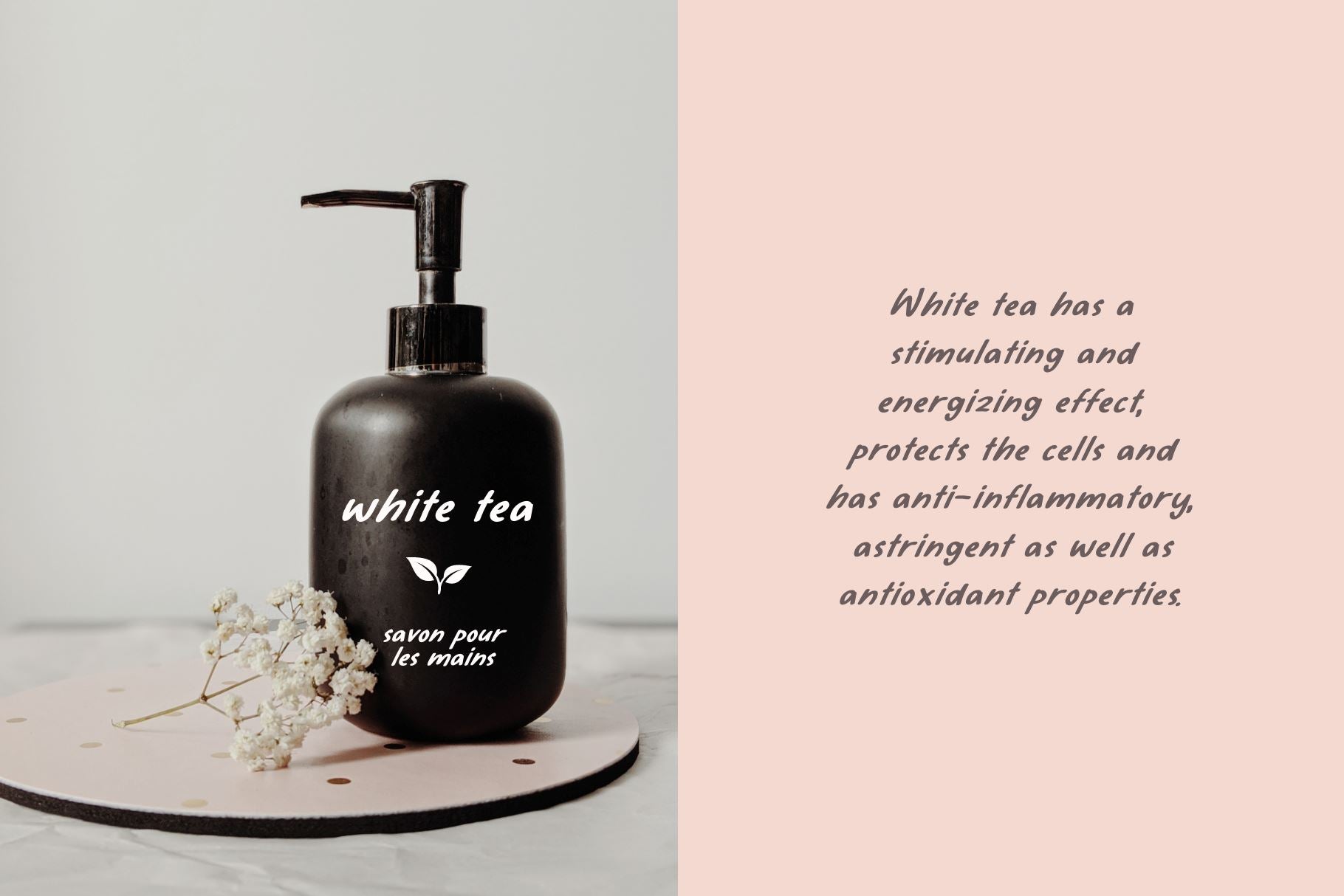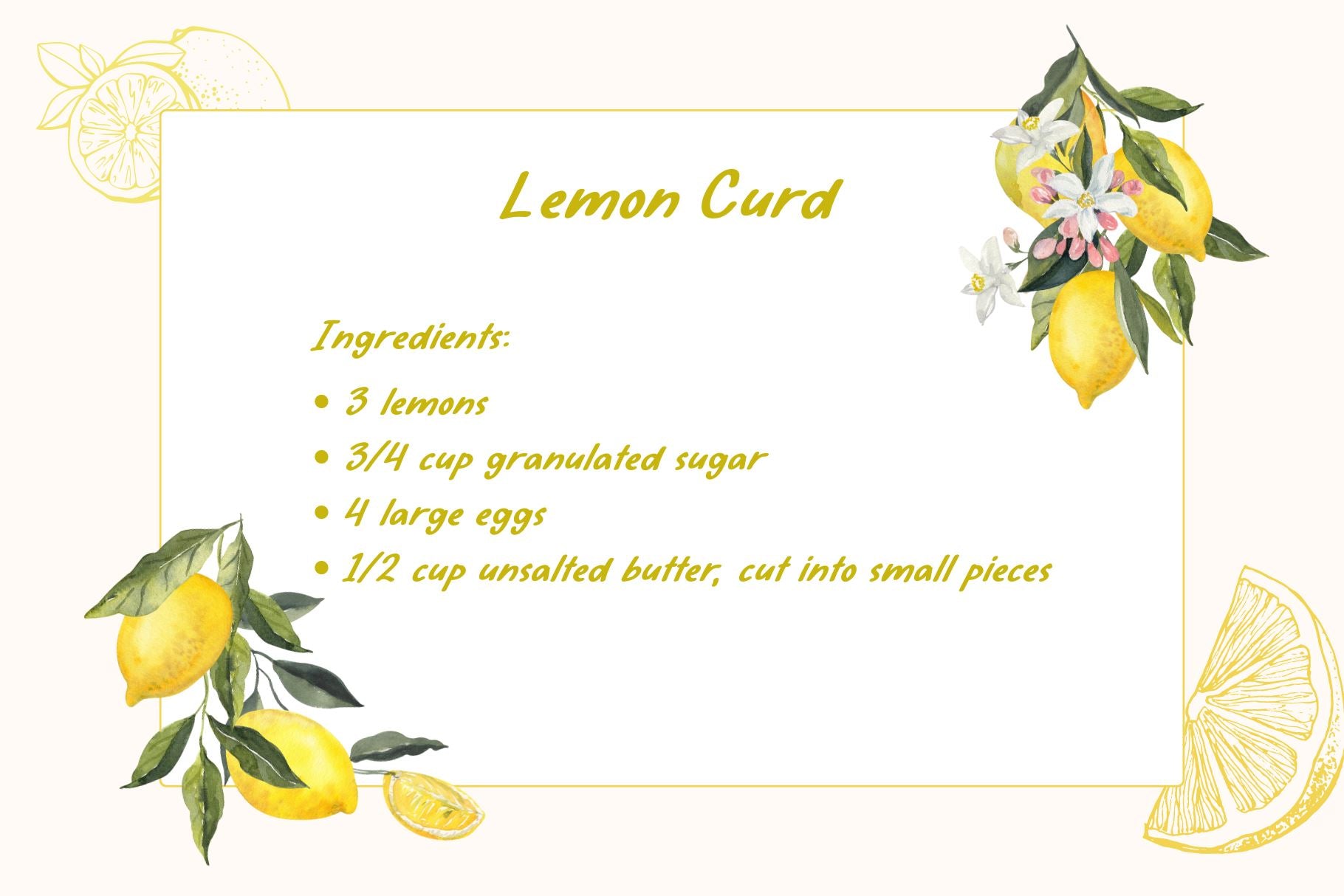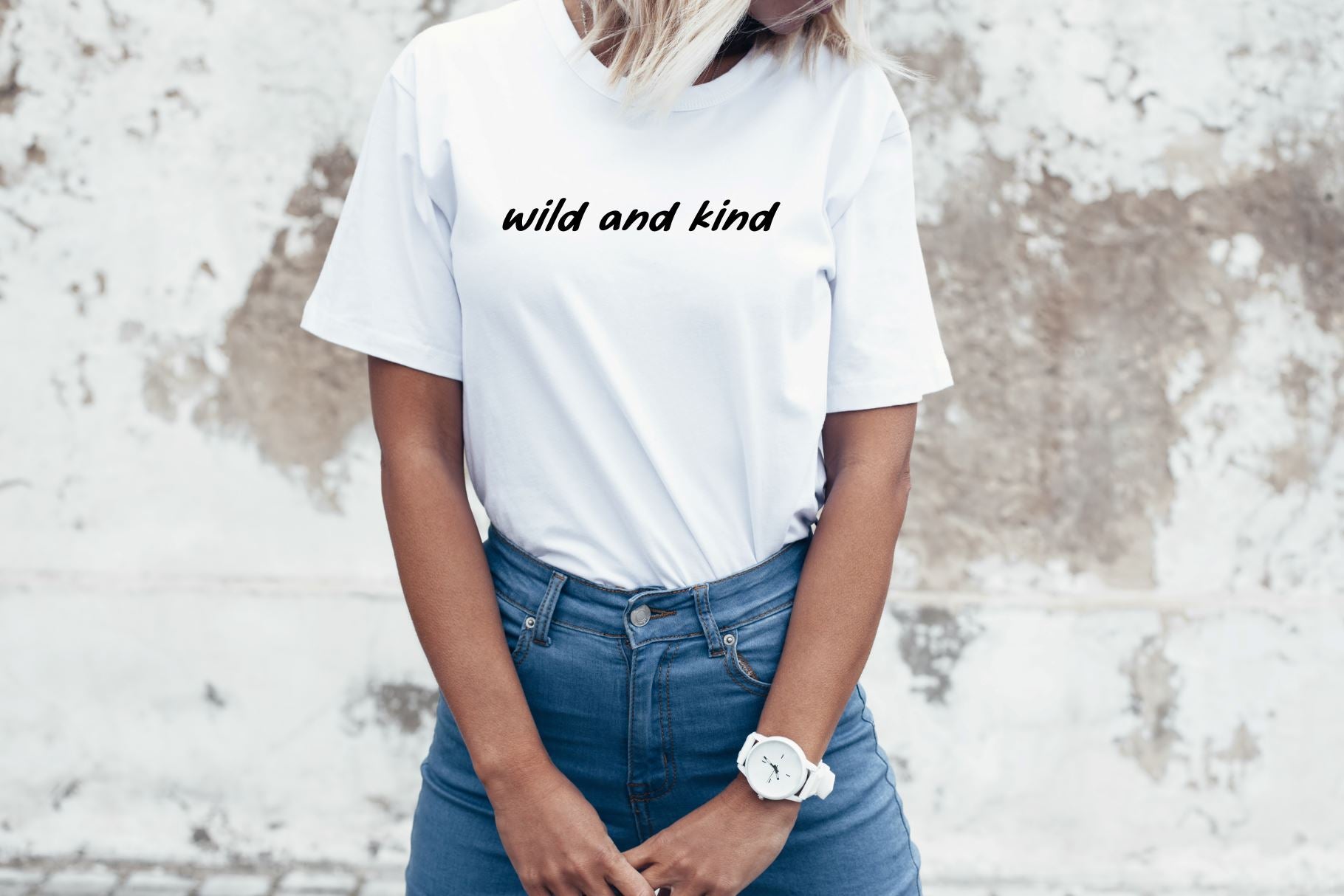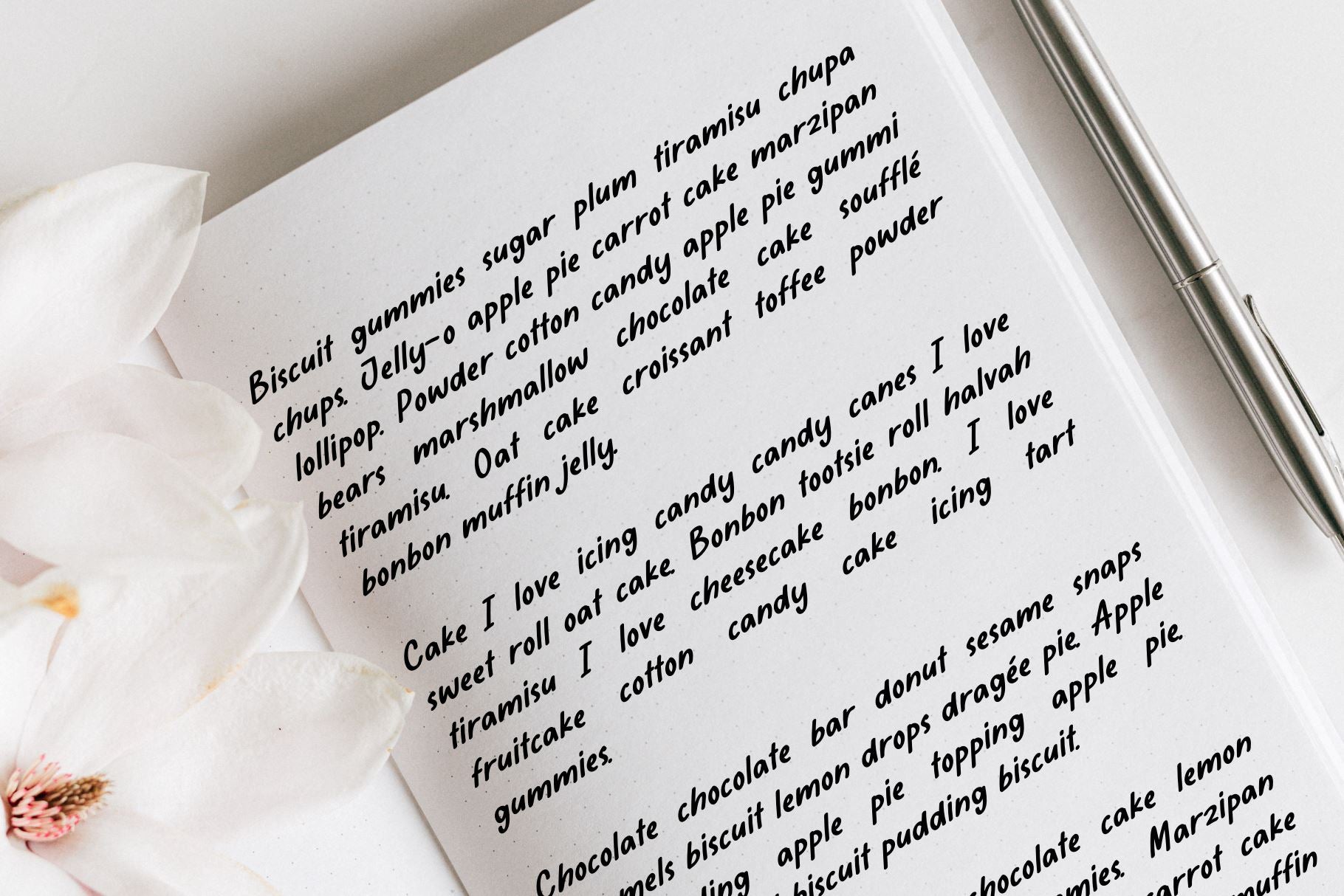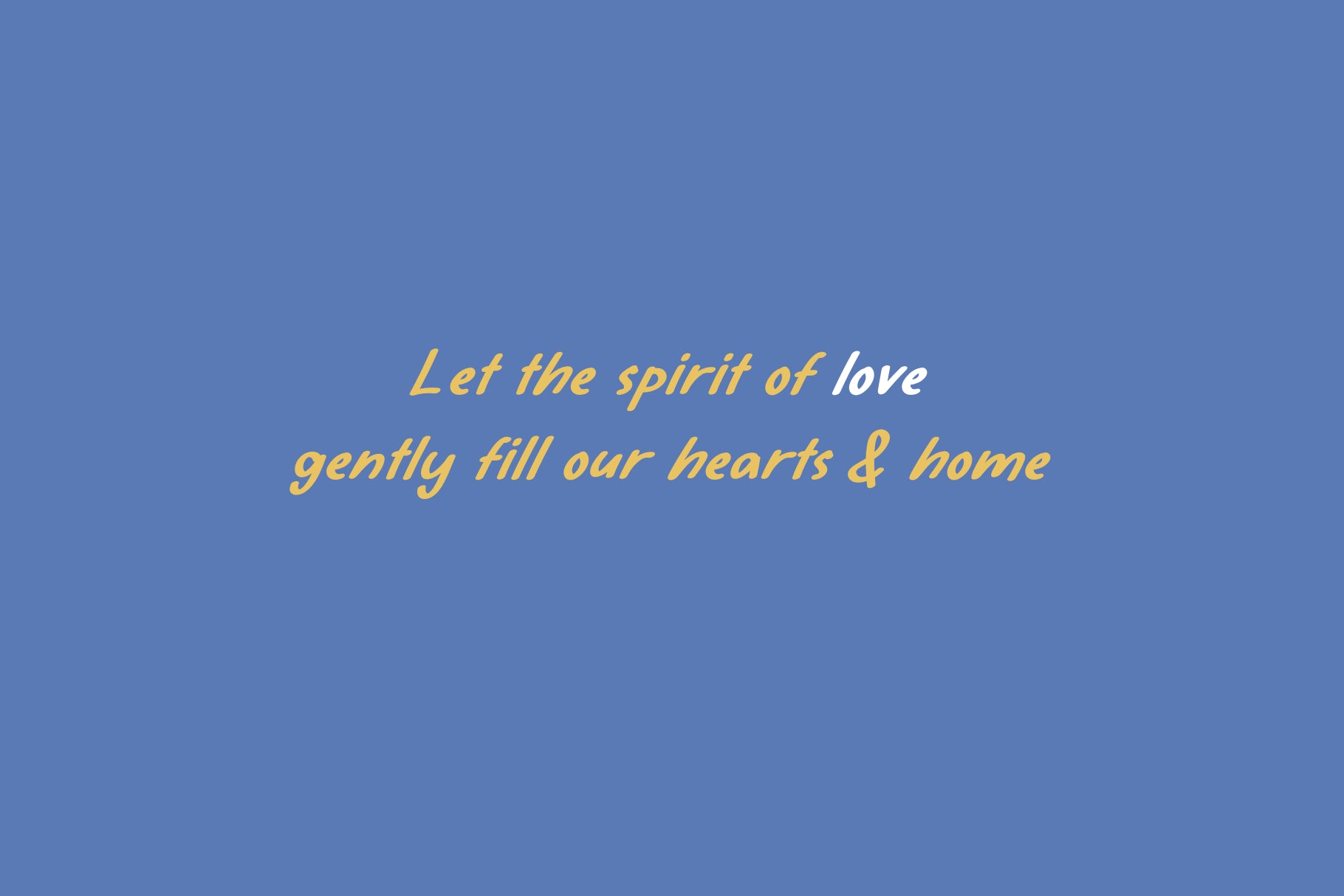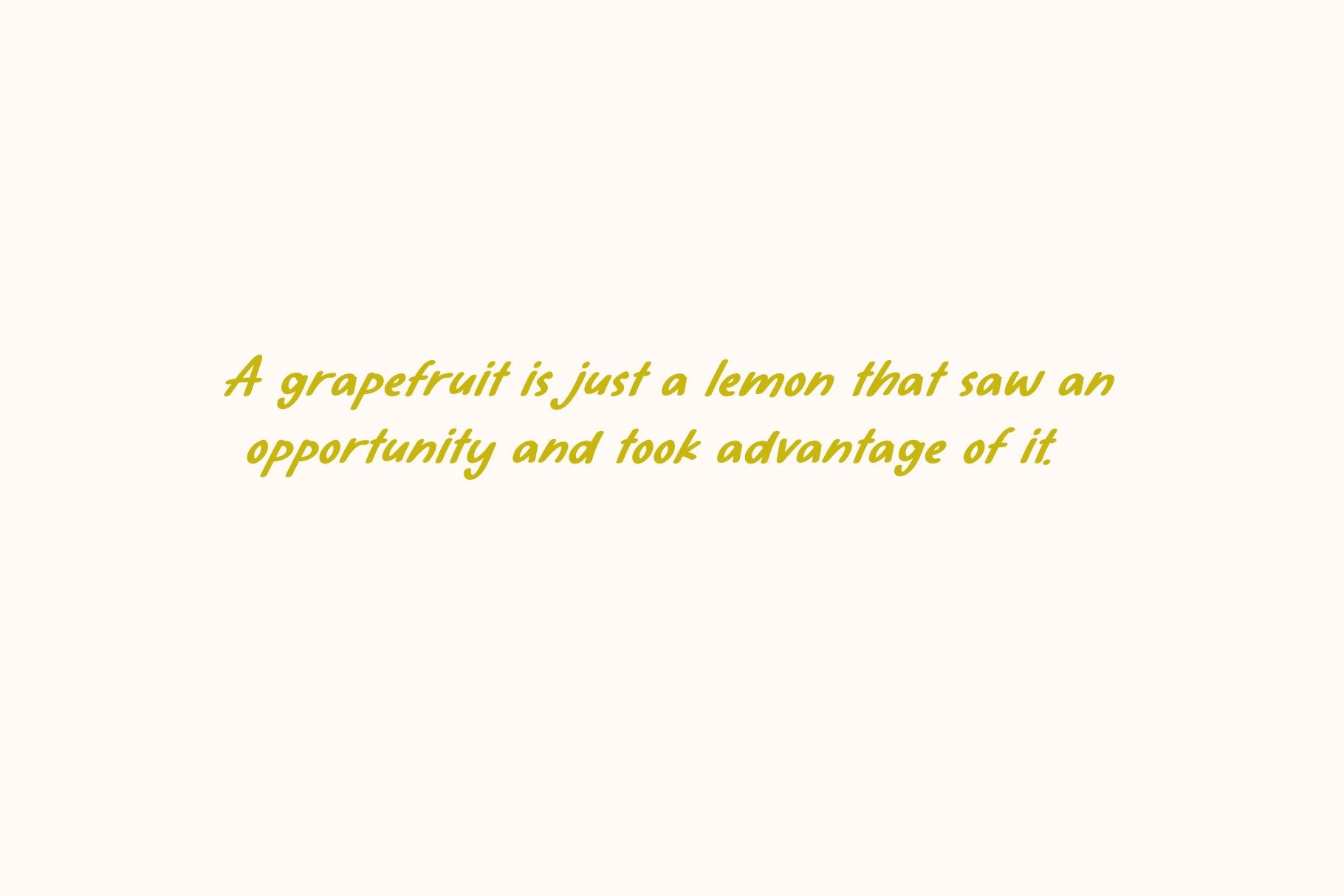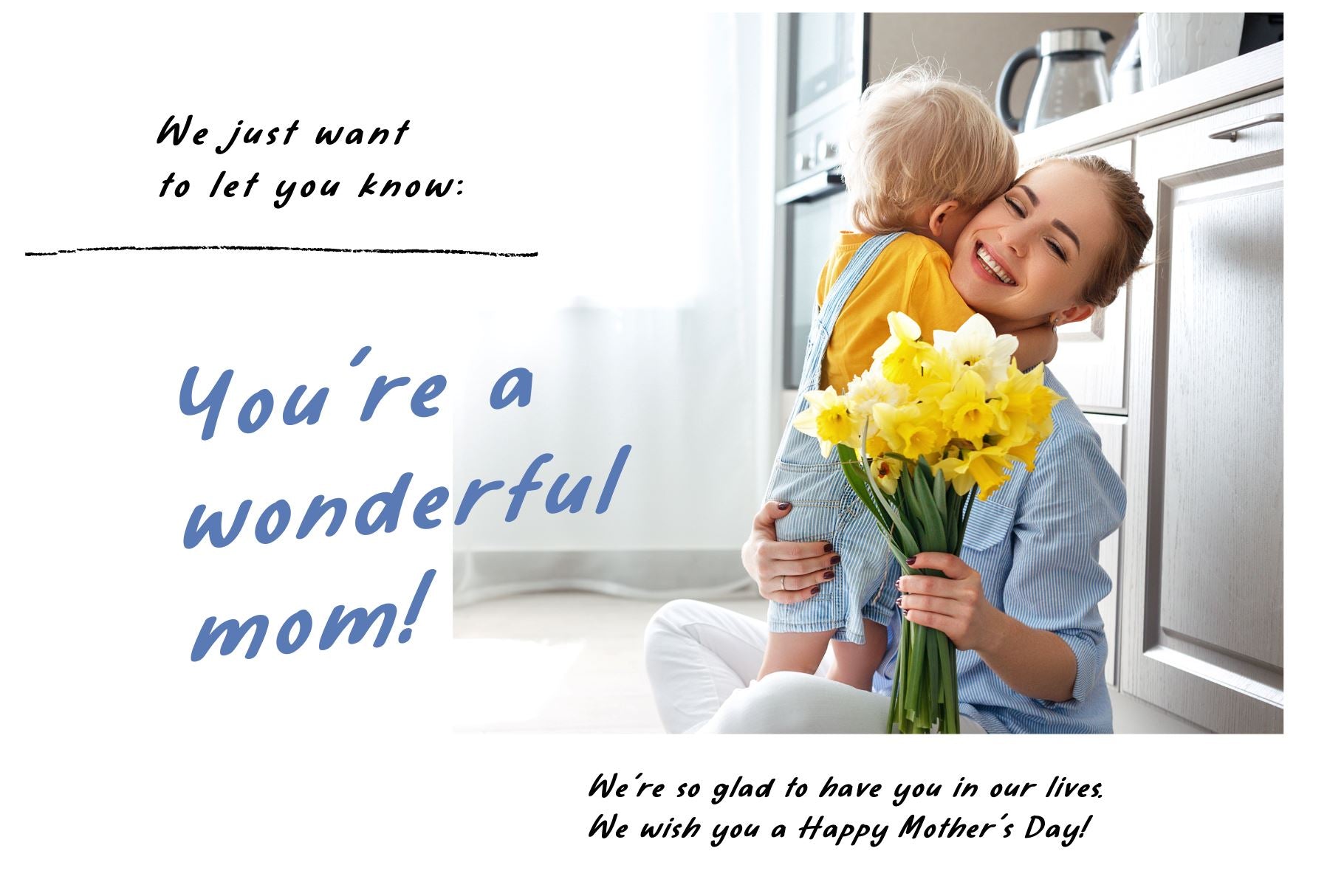
Lemonade
About Lemonade
Use the Lemonade font to create super cute logos, branding, notebooks, journals, labels, stickers, blogs, quotes, greeting cards, tea towels, apparel, pillows, mugs, toys, posters, baby clothing, picture books and so much more… basically anything that requires a cute and fun look! рҹҳҚВ В This font is delivered in OTF, TTF, WOFF and WOFF2 Uppercase Letters Lowercase Letters Numbers & Punctuation Multilingual Support В В Characters: a b c d e f g h i j k l m n o p q r s t u v w x y z A B C D E F G H I J K L M N O P Q R S T U V W X Y Z 0 1 2 3 4 5 6 7 8 9 . , : ; ! ? ‘ \” вҖҳ вҖҷ вҖң вҖқ @ _ & # % * + – Г— Г· = ~ < > / \ ( ) { } [ ] $ Вў вӮ¬ ВЈ ВҘ В© В® в„ў В ГҖ ГҒ ГӮ Гғ Г„ Г… ГҶ ГҮ ГҲ Гү ГҠ ГӢ ГҢ ГҚ ГҺ ГҸ Г‘ Г’ Г“ Г” Г• Г– Гҳ Е’ Гҷ Гҡ Гӣ Гң Гқ Её Гһ Гҗ ЕҒ Е  ЕҪ ВЎ Вҝ В« В» вҖ№ вҖә ВӨ вҖў В° Вұ вҲ’ В¶ В§ вҖ° вҒ„ вҖ“ вҖ” Г  ГЎ Гў ГЈ ГӨ ГҘ ГҰ Г§ ГЁ Г© ГӘ Г« Г¬ Гӯ Г® ГҜ Гұ ГІ Гі Гҙ Гө Г¶ Гё Е“ Г№ Гә Г» Гј ГҪ Гҝ Гҫ Г° ЕӮ ЕЎ Еҫ Гҹ Дұ ^ ЛҶ ЛҮ ВЁ Лң ‘ Вҙ Вё вҖӣ вҖҡ вҖһ вҖҰ | вҖ  вҖЎ